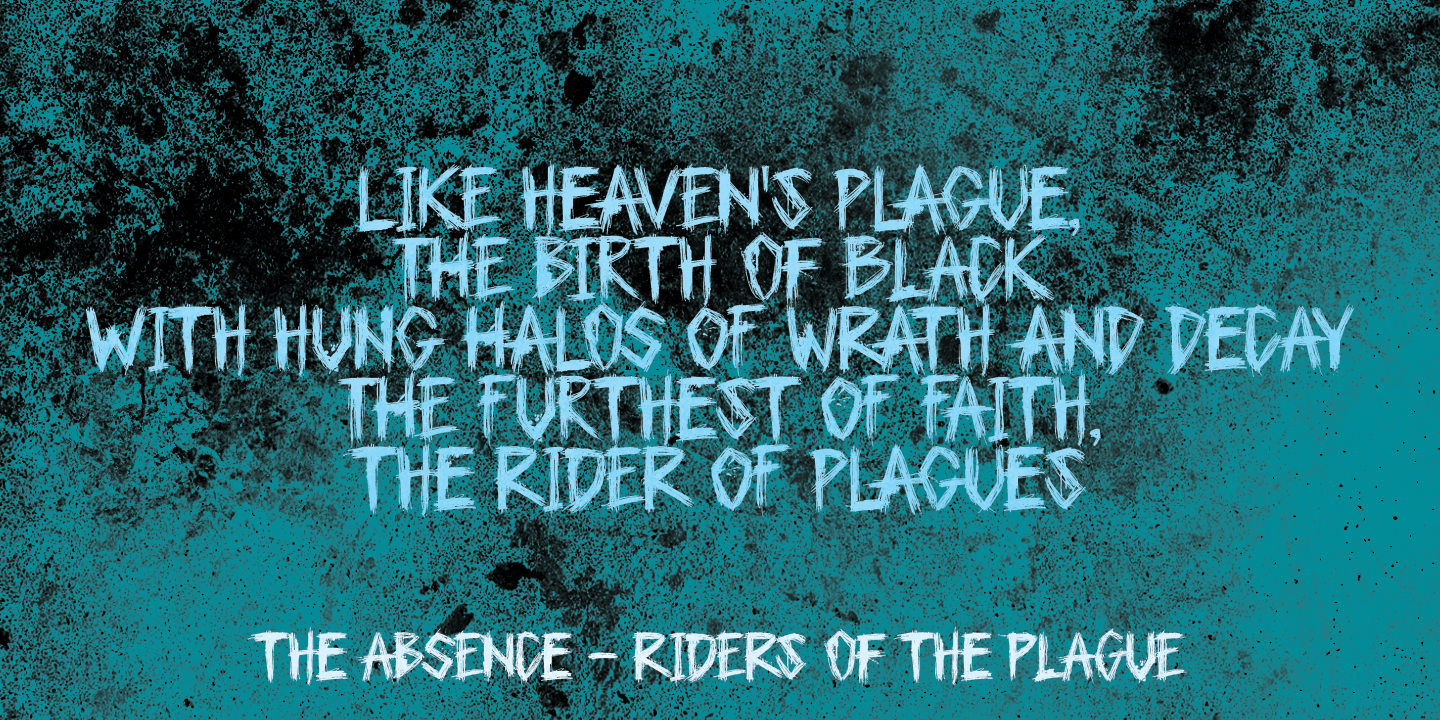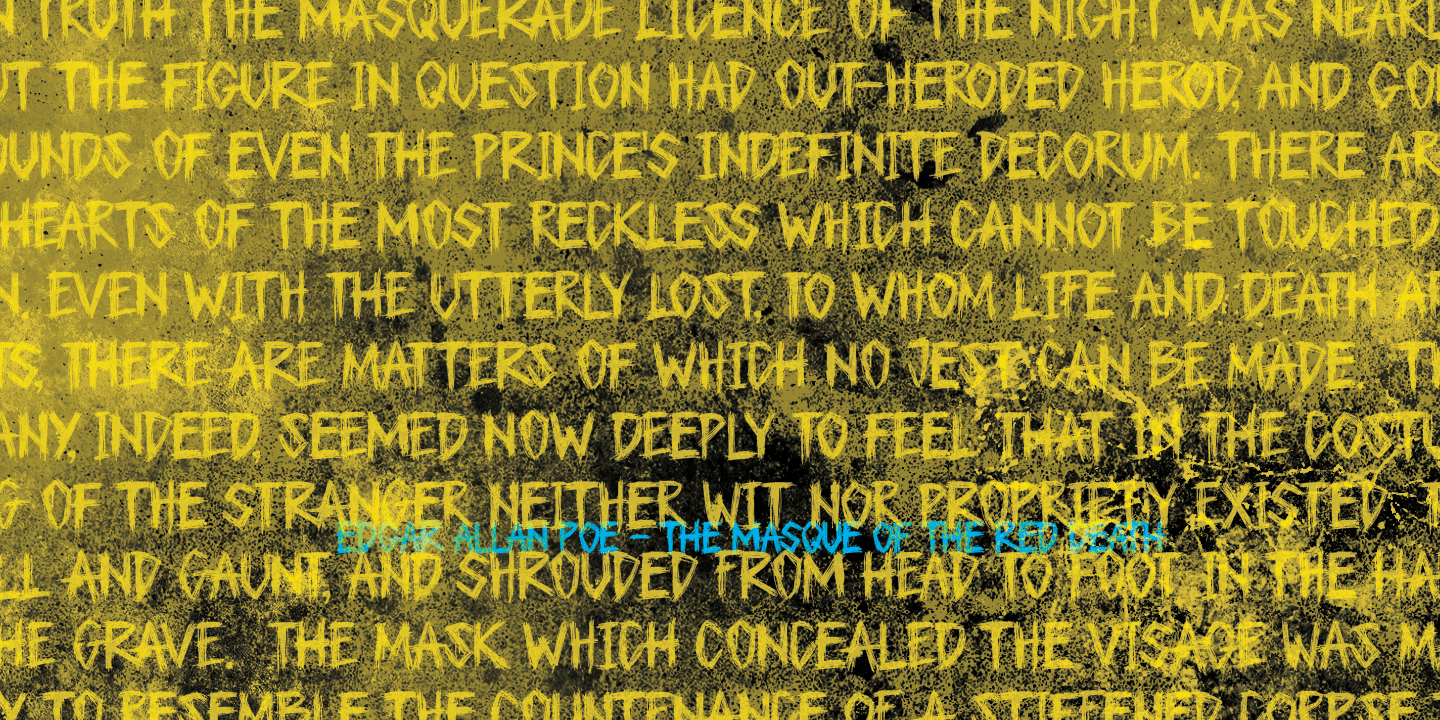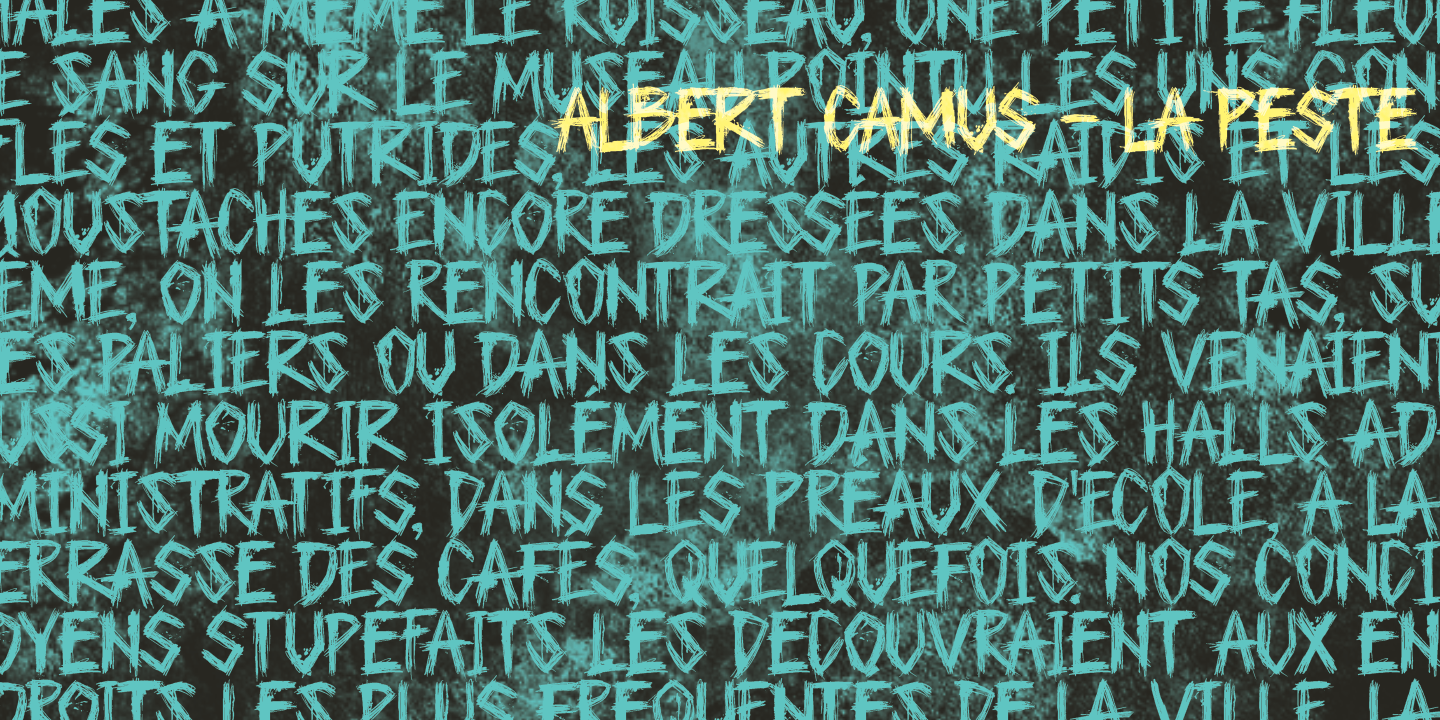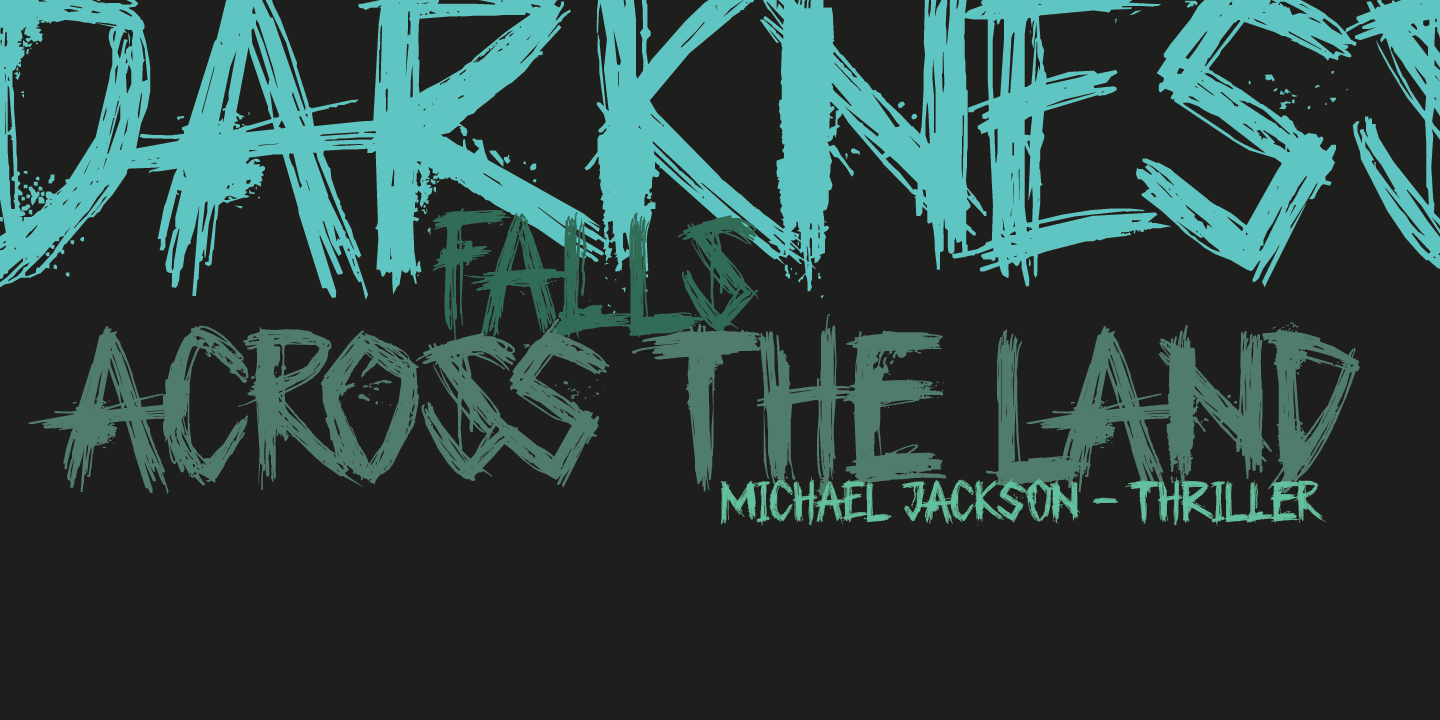
Plague Master
I had a bit of a crazy week when I thought up an drew this font. I broke my arm during kickboxing training on monday, leaving me in a cast - unable to do most everyday things, like getting a good night's sleep (try sleeping with a humongous cast on your arm). Thank goodness, it is my left arm, so I can still draw letters and use my laptop.
So? this font has been made entirely using one arm! It is a bit of a horror font - it sort of sums up my mood right now. Glyphs have very little spacing, adding to the evil look of Plague Master.
Comes with a lethal amount of diacritics.
Plague Master by Hanoded